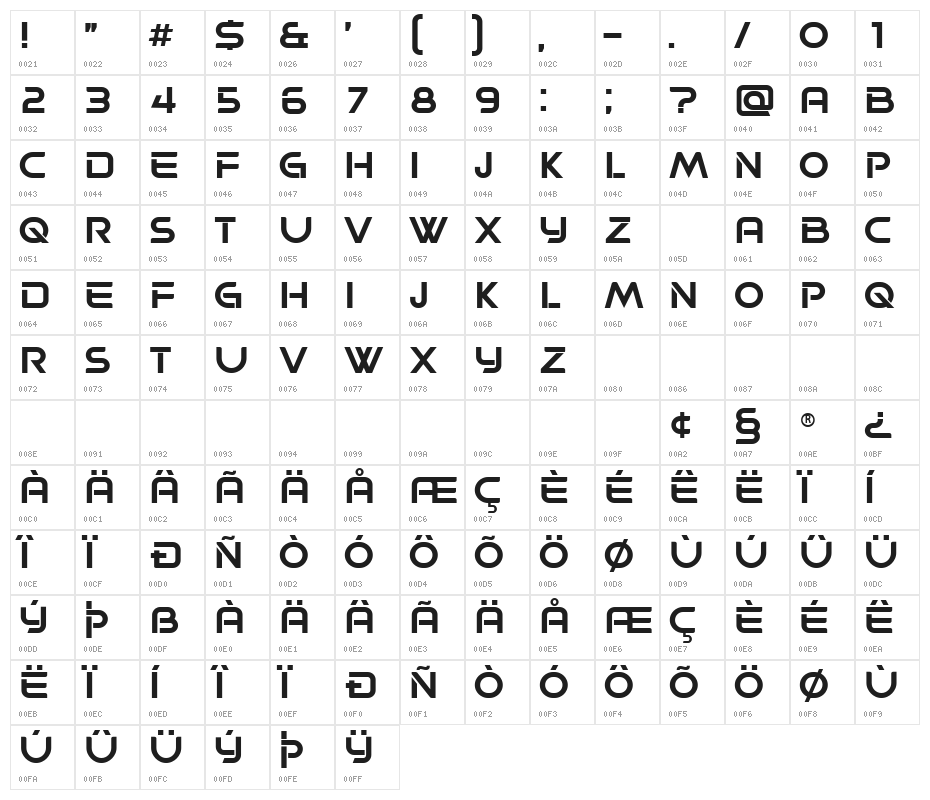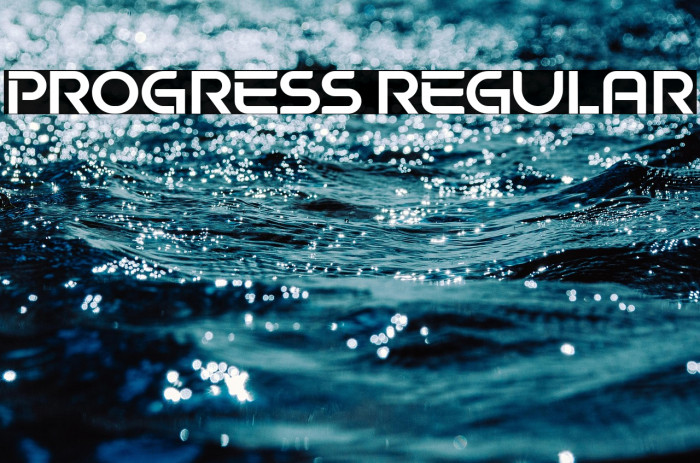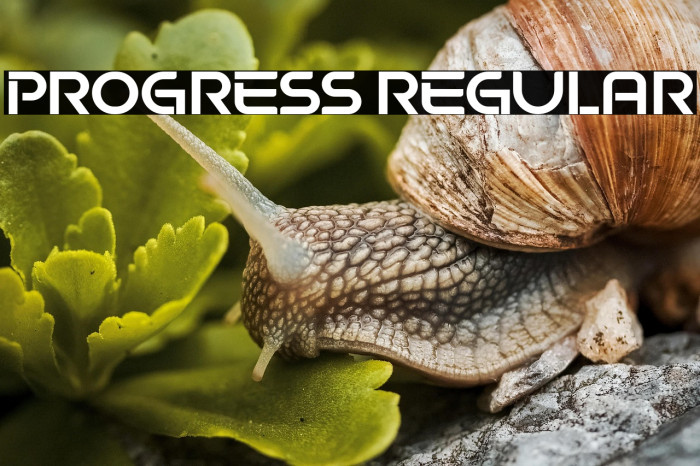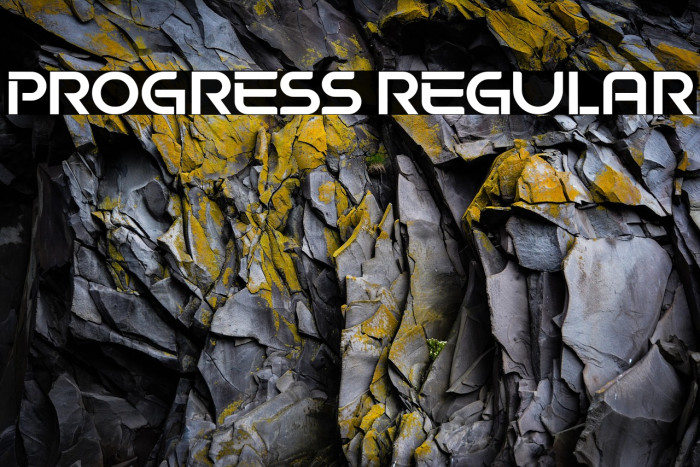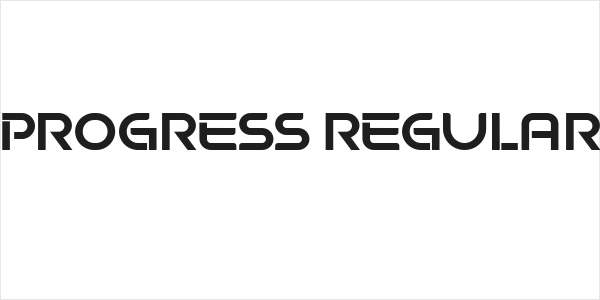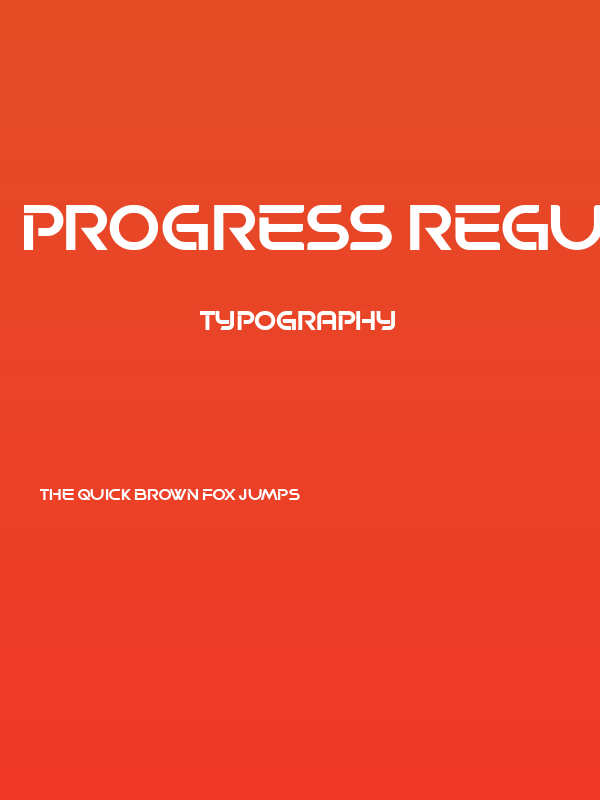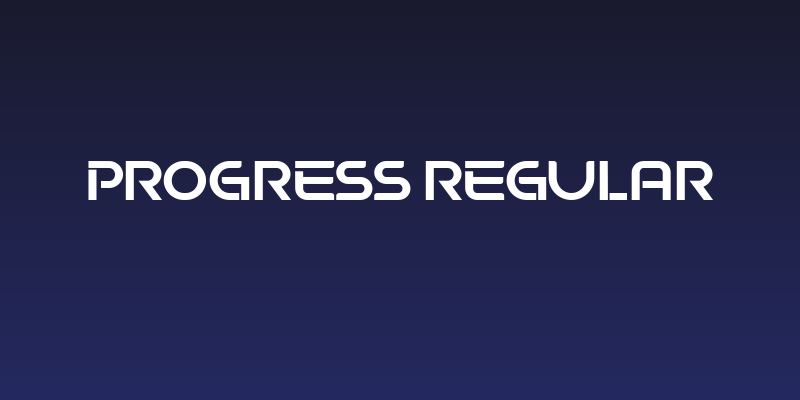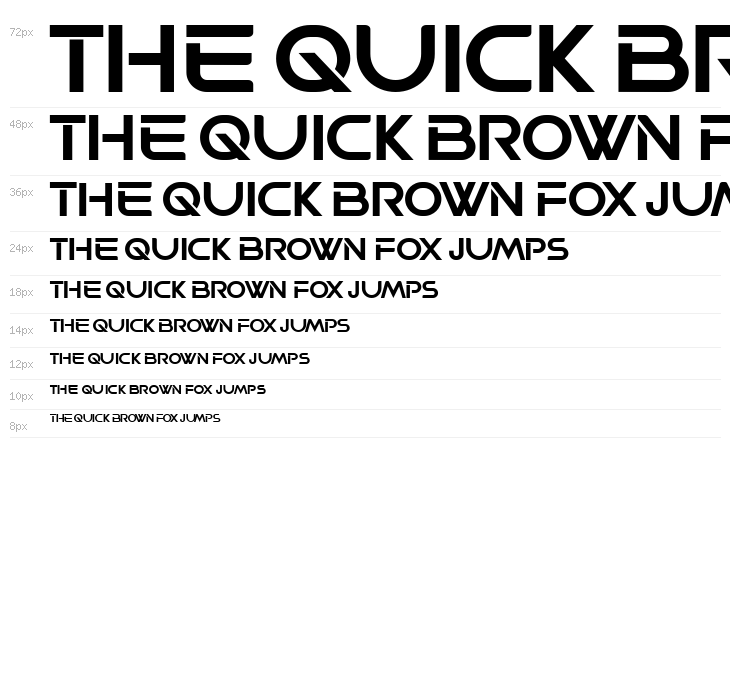
Progress Regular Font
Progress Regular Description
This font features a bold and futuristic design with geometric shapes and sharp angles. The characters are uniformly structured, giving a sense of cohesion and modernity. The uppercase letters are particularly striking, with a strong presence that commands attention. The numerals and special characters maintain the same bold aesthetic, ensuring consistency across all elements. The font's style is reminiscent of digital or sci-fi themes, making it ideal for projects that require a modern and edgy look.